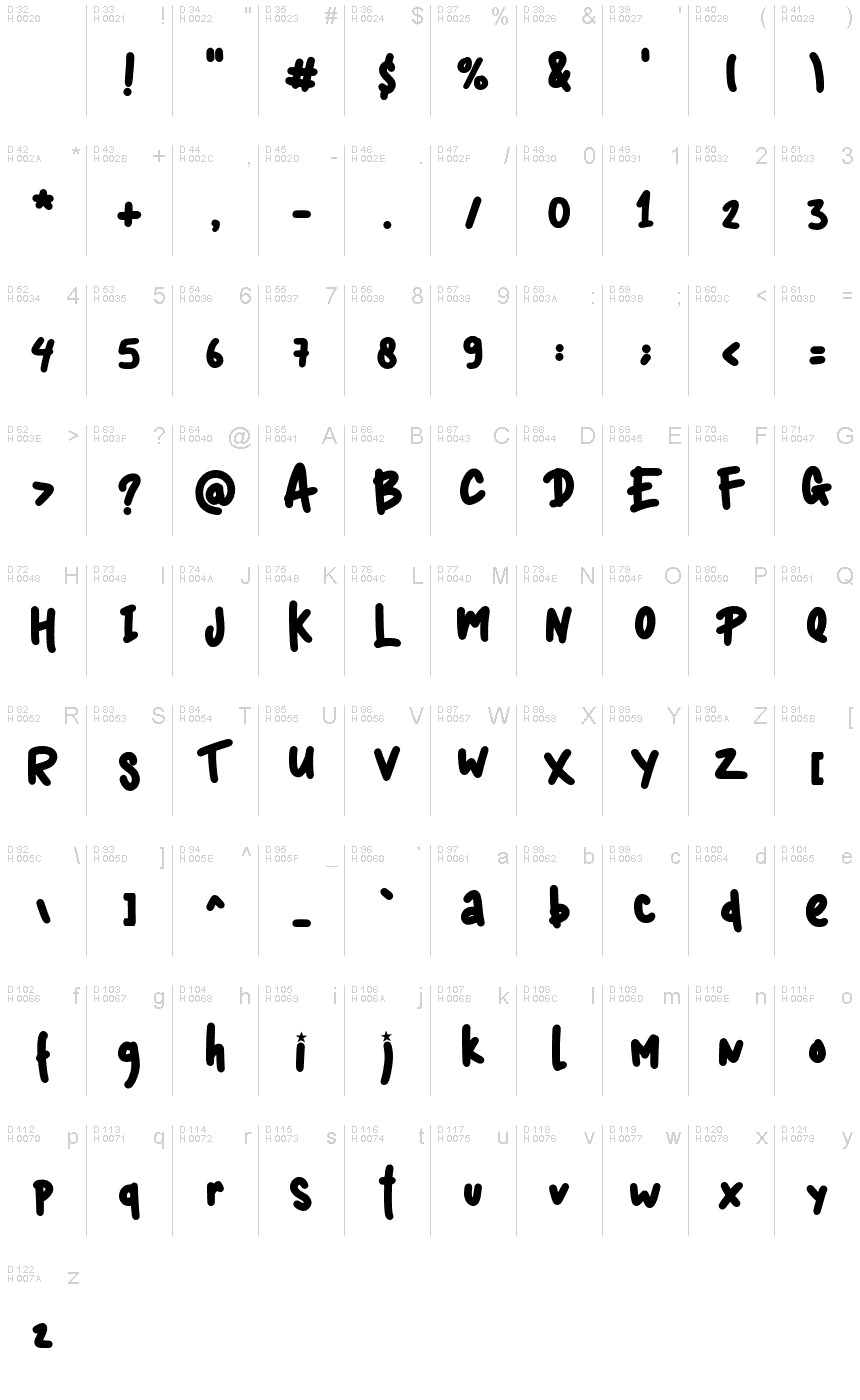
Introducing Shooting Star, a playful handwritten font designed by Stefani Letter. With its bold weight and unique style, Shooting Star is perfect for creating eye-catching designs like posters, logos, cards and apparel. Make a statement with Shooting Star today!